From aggressive band logos to premium streetwear, the right cursive tattoo font adds instant character. I’ve rounded up 26 versatile scripts that balance artistic flair with professional readability to help your brand identity stand out from the crowd.
1. Black Ink: Bold Heritage Meets Modern Edge
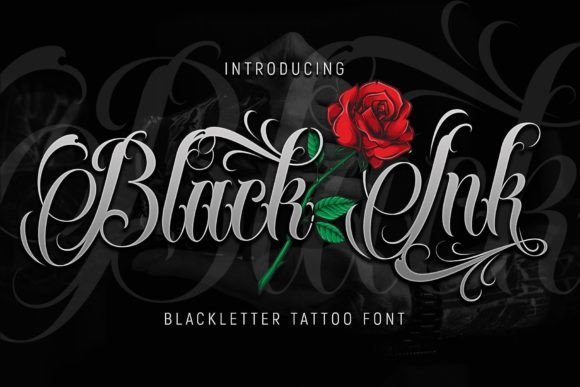
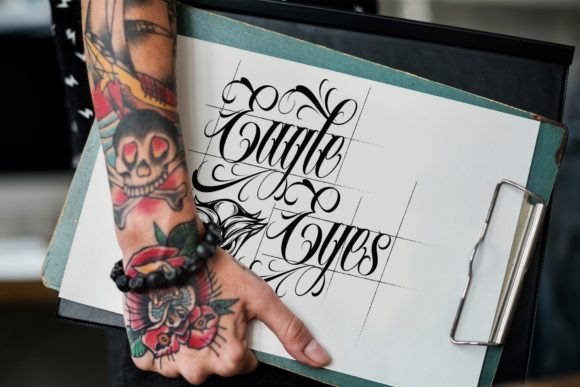
I’ve always been a fan of scripts that carry a story, and Black Ink is that perfect cursive tattoo font that screams authenticity. It’s got this incredible contemporary blackletter soul that feels gritty yet precisely engineered. When I use it, I love how the sharp flourishes instantly give a design that “freshly inked” look, turning a simple layout into something with real attitude and history.
I find this cursive tattoo font works best for bold logos, t-shirt graphics, and edgy brand identities. Its biggest advantage is its sheer presence; it doesn’t just sit there—it commands attention on posters and flyers alike. If you’re looking to add a confident, rebellious touch to your next project, Black Ink is a choice you’ll absolutely love the results of.
2. Chicano: The Ultimate Bold Cursive Tattoo Font
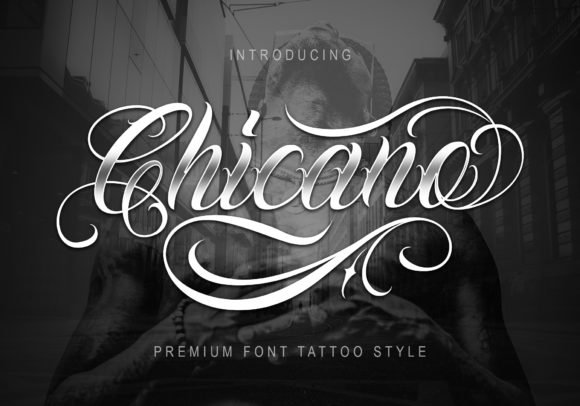
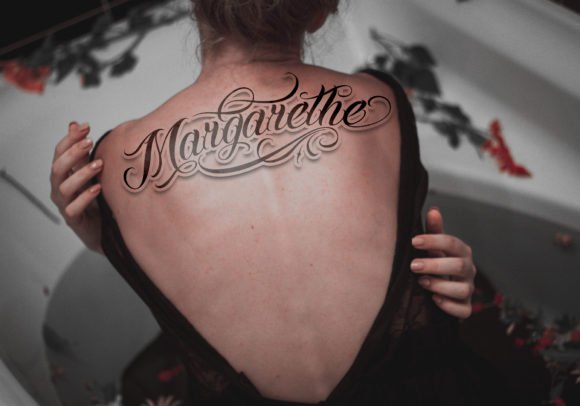
Whenever I want to capture that raw, authentic street-art vibe, Chicano is the first cursive tattoo font I reach for. It has this unique, powerful energy that feels like it was drawn directly by a master artist’s hand rather than typed on a keyboard. I love how the exaggerated swashes and weighted lines create a rhythm that is both aggressive and beautiful, making it impossible to overlook in any layout.
I personally recommend this cursive tattoo font for large-scale back pieces, streetwear branding, and high-contrast poster art. Its main advantage is its “stand out” factor; it transforms standard text into a custom-looking masterpiece. Whether you are working on a premium apparel line or a striking logo, Chicano brings a gritty, timeless soul to your creative toolkit that feels incredibly human.
3. Tattoo Studio: A Meticulously Crafted Cursive Tattoo Font for Artists
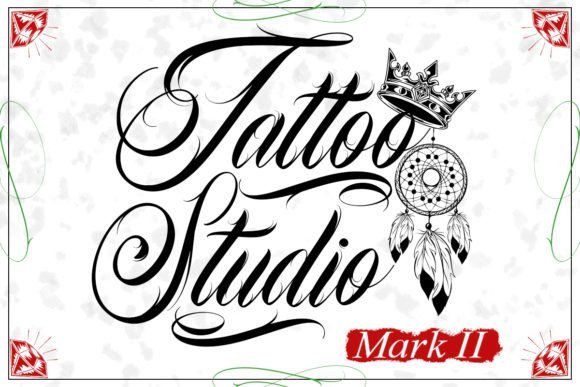
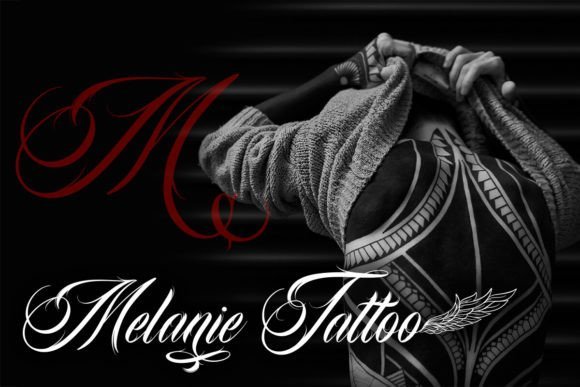
I’m genuinely impressed by the calligraphic charm of Tattoo Studio; it’s a cursive tattoo font that feels like a true testament to the art of inking. Every stroke and curve is meticulously designed, capturing a fresh, contemporary style while maintaining that raw, edgy aesthetic I look for in a script. It’s more than just a typeface—it’s a soulful blackletter that brings a thoughtful, professional touch to any canvas.
I highly recommend this cursive tattoo font for professional tattoo studio branding, metal t-shirt designs, and hardcore punk posters. Its main advantage is its incredible adaptability, allowing it to transition seamlessly from a shop sign to high-end apparel. Whether you’re a designer or an aficionado, the meticulous kerning and subtle shapes of Tattoo Studio will give your next project a bold, authentic edge.
4. Bethinae: The Glamorous Dark Side of Cursive Tattoo Font Design
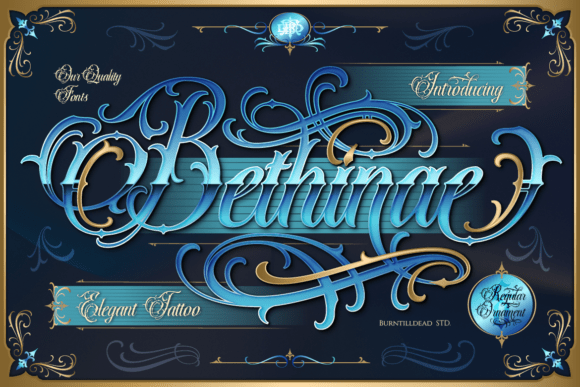
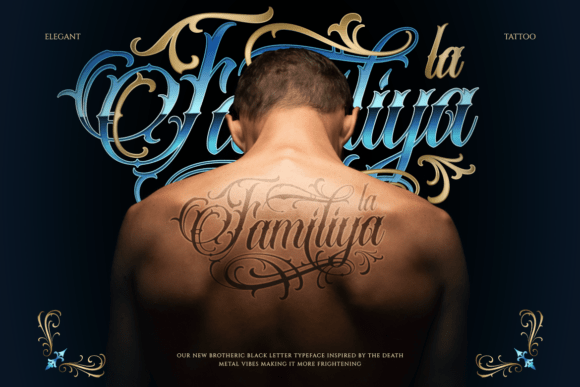
I’m really drawn to Bethinae because it manages to pull off that rare mix of raw masculinity and high-end elegance. As a cursive tattoo font, it takes the heavy, structured bones of blackletter and softens them with these gorgeous, flowing flourishes. It has this mysterious “glamorous dark” vibe that reminds me of an exclusive club or a high-end gangster tattoo—it’s bold, it’s stylish, and it definitely doesn’t play it safe.
I love using this cursive tattoo font for barbershop logos, luxury garage branding, and edgy streetwear designs. A huge advantage is the Ornaments style, which adds a layer of refined luxury that helps any project step into a whole new visual world. Whether you’re aiming for a mysterious brand identity or a standout tattoo studio sign, Bethinae delivers a polished, custom feel that looks incredibly professional.
5. Emilia Luck: Modern Blackletter Mastery
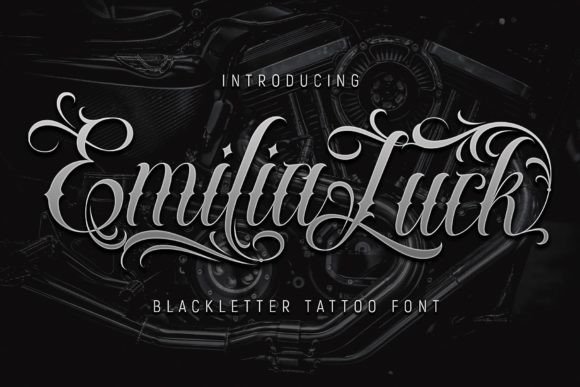
I’ve always felt that a solid cursive tattoo font should act as a bridge between tradition and modern style, and Emilia Luck does exactly that. It’s a contemporary blackletter that feels incredibly grounded, yet it has a sharp, clean execution that makes it a breeze to work with. When I integrate this typeface into my artwork, it instantly adds a layer of street-smart sophistication that’s hard to ignore.
I find this cursive tattoo font is a natural fit for bold logos, edgy t-shirt designs, and high-impact posters or flyers. The real advantage here is its versatility; it’s an excellent typeface for any brand identity material that needs a touch of rebellious soul. Whether you’re crafting a concert flyer or a personal brand mark, Emilia Luck provides that professional “hand-inked” finish every time.
6. Eighteen Tattoo: A Smooth Twist on the Cursive Tattoo Font Trend
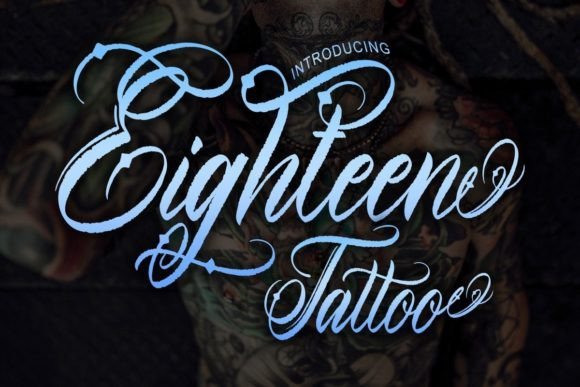
Final Thoughts
Choosing the perfect cursive tattoo font is all about matching the energy of your message. With these 26 options, you have everything you need to create something legendary. Now, go grab your favorite and start inking your next masterpiece!